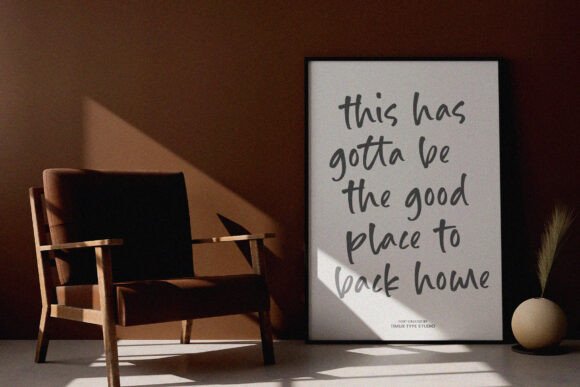
Diamond Days Font: Elevate Your Designs with Elegance and Sophistication
Diamond Days is a stunning handwritten script font that has captured the hearts of designers and creative enthusiasts alike. Its flowing, cursive strokes and refined aesthetic make it an ideal choice for a wide range of design projects, from wedding invitations and branding to logo designs and more. In this article, we’ll dive into the world of Diamond Days Font, exploring its unique features, uses, and benefits.
The Essence of Diamond Days Font
Diamond Days Font is characterized by its elegant, handwritten script style, which exudes a sense of sophistication and charm. The font’s smooth curves and natural handwriting style evoke a sense of warmth and individuality, making it perfect for adding a touch of elegance to any design. Whether you’re looking to create a luxurious brand identity, a beautiful wedding invitation, or a stylish logo, Diamond Days Font is sure to impress.
Key Features of Diamond Days Font
- Elegant Handwritten Script Style: Diamond Days Font boasts a beautiful, flowing script style that adds a touch of sophistication to any design.
- Smooth Curves and Natural Handwriting Style: The font’s smooth curves and natural handwriting style create a sense of warmth and individuality.
- Refined Aesthetic: Diamond Days Font has a refined aesthetic that makes it perfect for high-end designs, such as luxury branding and wedding invitations.
- Versatile: The font is versatile and can be used for a wide range of design projects, from digital to print.
Uses of Diamond Days Font
Diamond Days Font is an incredibly versatile font that can be used for a variety of design projects, including:
- Wedding Invitations: The font’s elegant and sophisticated style makes it perfect for wedding invitations, save-the-date cards, and other wedding-related designs.
- Branding and Logo Design: Diamond Days Font is ideal for creating luxurious brand identities, logos, and business cards.
- Digital Designs: The font can be used for digital designs, such as social media graphics, website headers, and email newsletters.
- Print Designs: Diamond Days Font is perfect for print designs, including brochures, flyers, and posters.
Benefits of Using Diamond Days Font
Using Diamond Days Font in your designs comes with a range of benefits, including:
- Unique and Elegant Style: The font’s unique and elegant style will set your designs apart from the rest.
- Time-Saving: With Diamond Days Font, you can create professional-looking designs in no time, saving you time and effort.
- Customizable: The font is highly customizable, allowing you to adjust the size, color, and style to suit your design needs.
- High-Quality: Diamond Days Font is a high-quality font that will ensure your designs look crisp and professional.
Tips for Using Diamond Days Font
To get the most out of Diamond Days Font, here are some tips to keep in mind:
- Use it Sparingly: Use Diamond Days Font sparingly to create a sense of elegance and sophistication.
- Pair it with Other Fonts: Pair Diamond Days Font with other fonts to create a unique and visually appealing design.
- Adjust the Size and Color: Adjust the size and color of the font to suit your design needs.
- Experiment with Different Styles: Experiment with different styles, such as bold and italic, to add variety to your designs.
Diamond Days Font is a stunning handwritten script font that is sure to elevate your designs with elegance and sophistication. Its unique features, versatility, and benefits make it an ideal choice for a wide range of design projects. Whether you’re a designer, entrepreneur, or creative enthusiast, Diamond Days Font is a must-have font in your collection.
- What is Diamond Days Font?: Diamond Days Font is a handwritten script font characterized by its flowing, cursive strokes and refined aesthetic.
- What is Diamond Days Font used for?: Diamond Days Font can be used for a wide range of design projects, including wedding invitations, branding, logo designs, and more.
- Is Diamond Days Font customizable?: Yes, Diamond Days Font is highly customizable, allowing you to adjust the size, color, and style to suit your design needs.